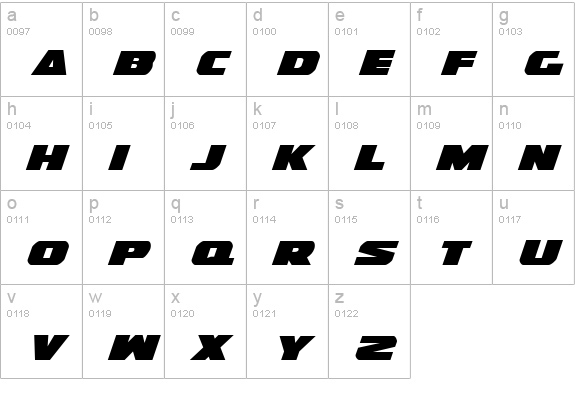
Guardian Expanded Italic is a distinctive, extended-width, italic variant in the Guardian typeface family \xE2\x80\x94 well suited to design and typography projects.
Guardian Expanded Italic font exudes elegance and sophistication with its sleek and stylish design. The italicized version of this font adds a touch of flair and modernity to any project. Its expanded width provides a bold and eye-catching look that is perfect for headlines, titles, and other attention-grabbing elements. This font is versatile and can be used for a wide range of design projects, from branding and advertising to editorial and web design. Its clean lines and unique letterforms make it a standout choice for those looking to make a statement with their typography. Best of all, Guardian Expanded Italic font is available for free download at FontsMarket.com. Take advantage of this amazing offer and add this beautiful font to your collection today!